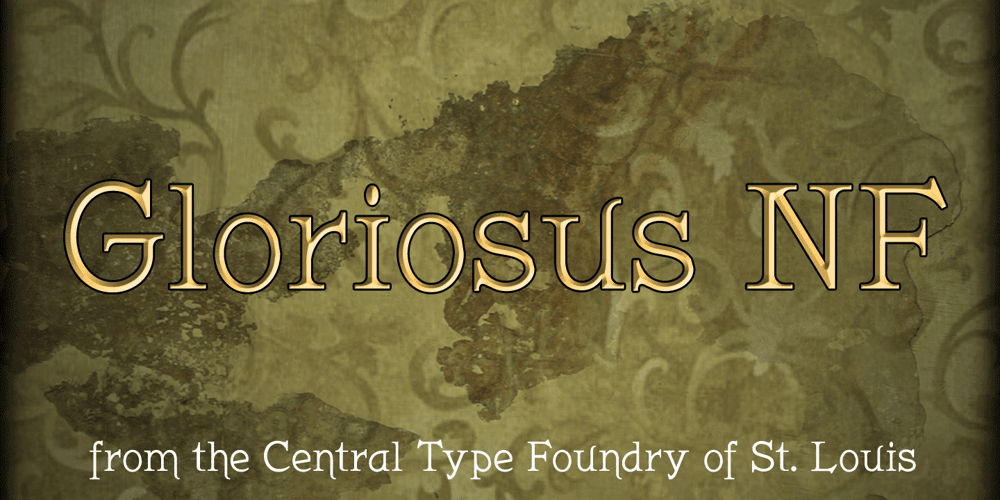
Gloriosus NF Font Family was designed by Gustav F. Schroeder, Nick Curtis and published by Nick’s Fonts. Gloriosus NF contains 1 styles and family package options. Originally issued as Apollo by the Central Type Foundry of Saint Louis, this face evokes the glamor of late Victorian era. Both versions of this font support the Latin 1252, Central European 1250, Turkish 1254 and Baltic 1257 codepages.